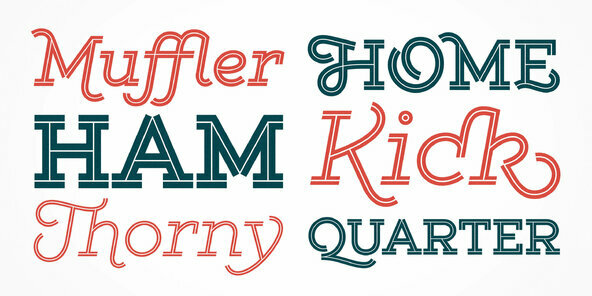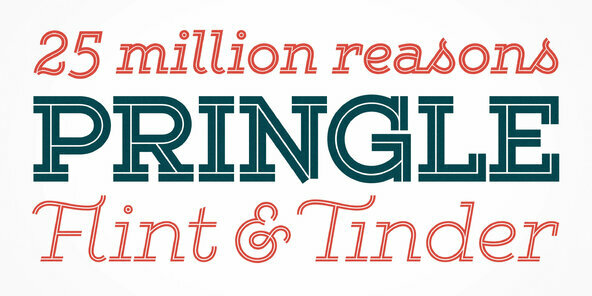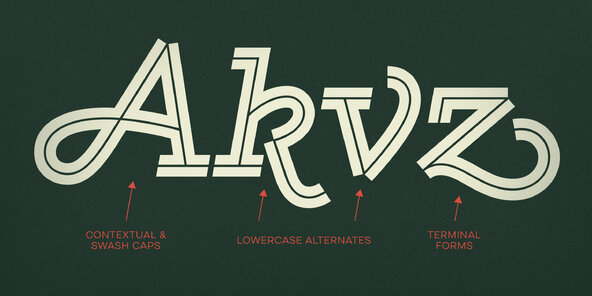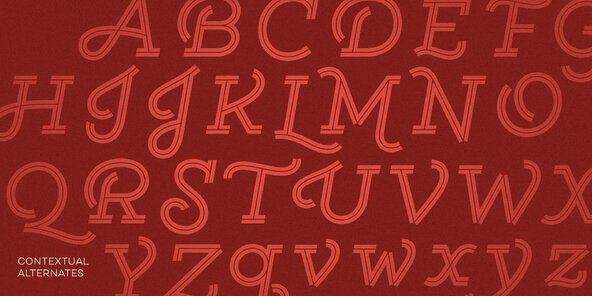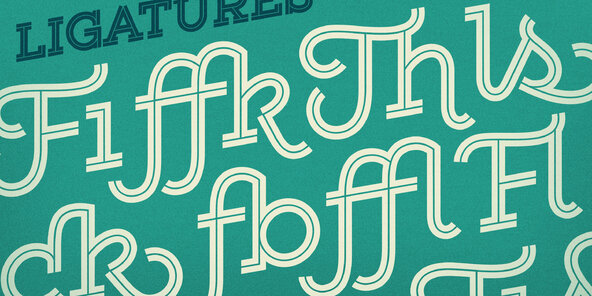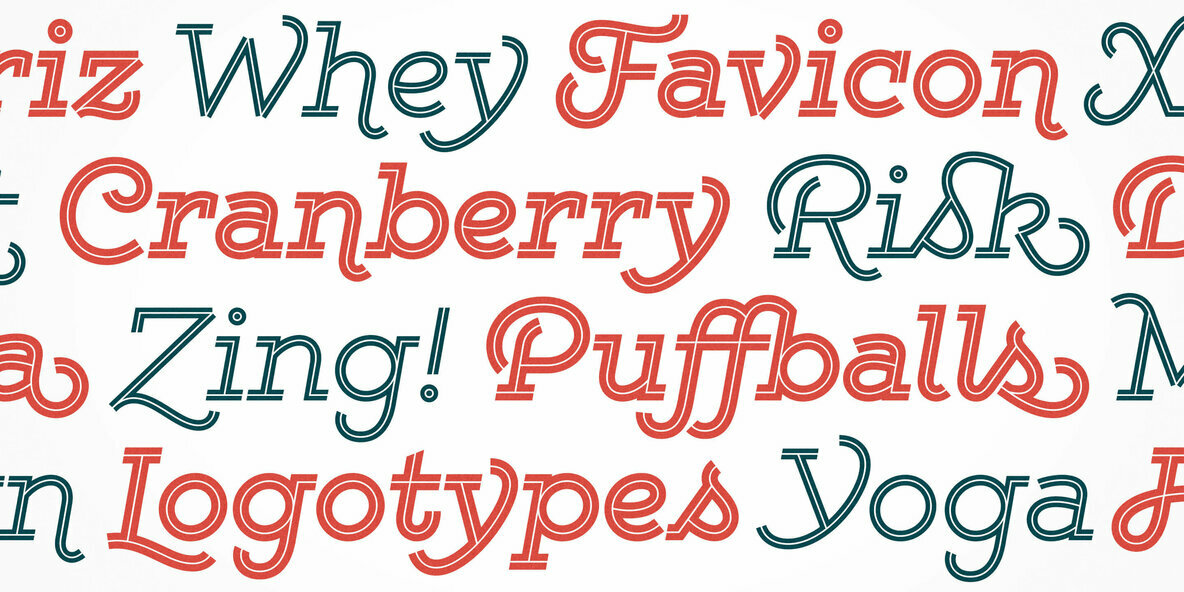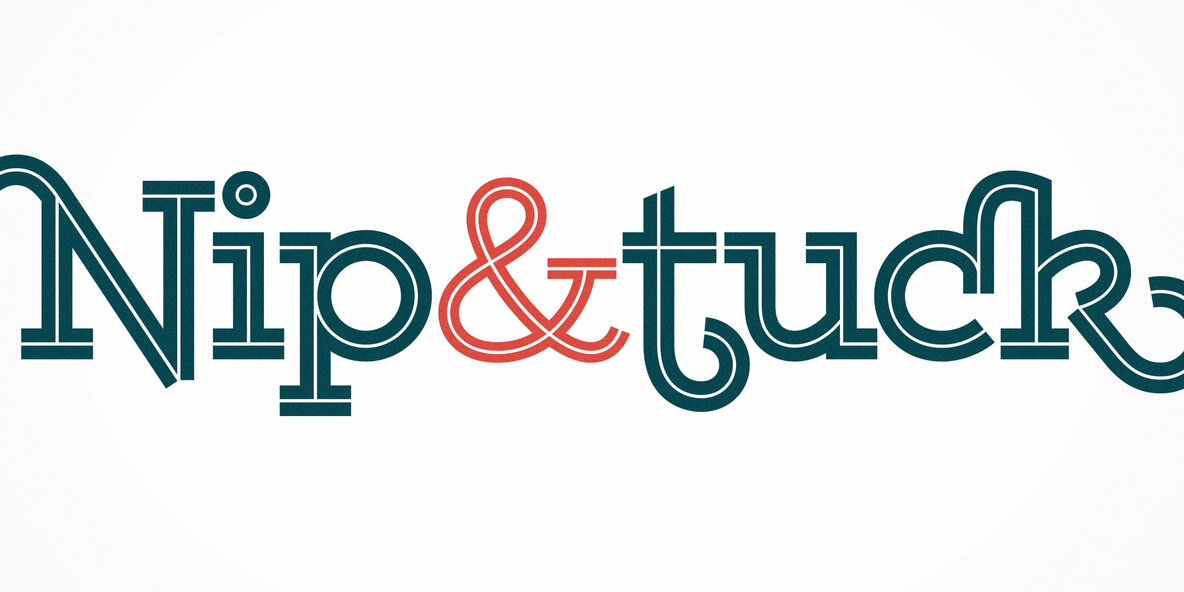
Gist Font
Gist from Yellow Design Studio is an inline slab serif with a retro yet modern vibe. It’s a collision between monoline slab and indie script. With 627 glyphs per weight, it’s highly customizable…either keep it simple with the base character set or use ligatures, alternates and swashes for extra flair. All-caps typesettings have an especially retro edge. Also included are line layers for adding color to the inline areas. As a bonus, try Gist Light for free!
Opentype Feature Descriptions:
Ligatures - Enables the standard ligatures that fix overlapping letters
Discretionary Ligatures - Enables the funkier ligatures
Contextual Alternates - Enables the alternate caps and q, v, w, x, y, z alternates
Swash - Enables the swash caps
Stylistic Alternates - Enables the funkier h, k, m, n, v, w, y, z
Stylistic Set 1 (Same as Stylistic Alternates) - Enables the funkier h, k, m, n, v, w, y, z
Stylistic Set 2 - Enables the end-of-word alternates (terminal forms)
Stylistic Set 3 - Enables the alternate round lowercase a
Stylistic Set 4 - Enables additional alternate B, D, E, H, M, N, R,T, W, Z, &, d
Stylistic Set 5 - Enables additional alternate E, H, M, N, R, Z, d
Stylistic Set 6 - Enables additional alternate H, M, N
Stylistic Set 7 - Enables additional alternate l, t
Stylistic Set 8 - Enables additional alternate l, t
Stylistic Set 9 - Enables additional alternate l, t
Superscript - Enables the superscript characters